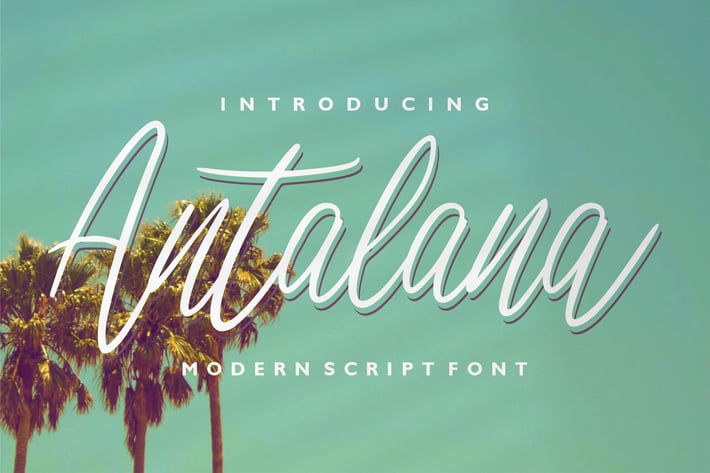
Antalana | Modern Script Font
Antalana | Modern Script Font with a calligraphy style, So beautiful on invitation like greeting cards, branding materials, business cards, quotes, posters, and more!